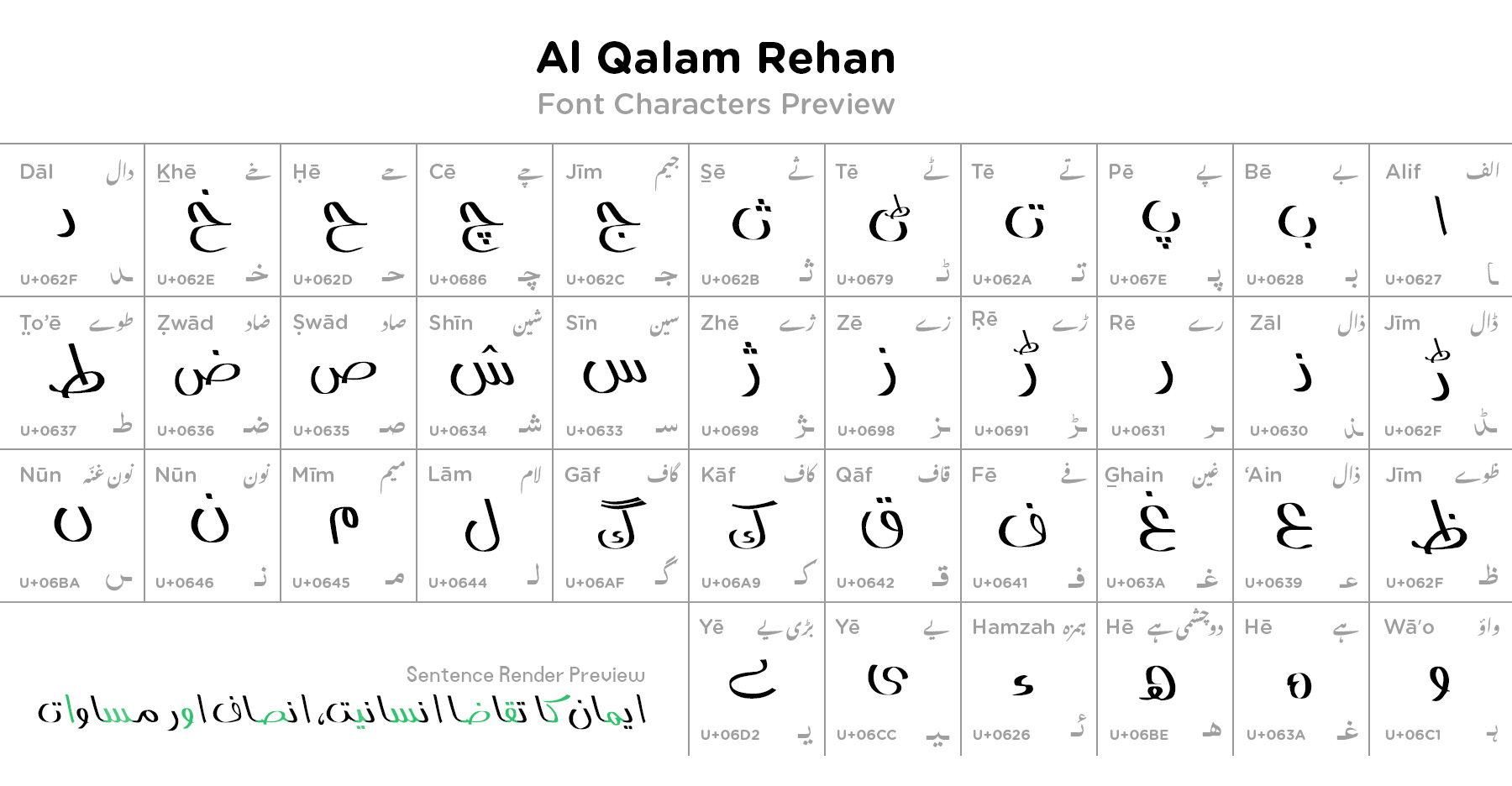
Al Qalam Rehan, crafted by font designer Syed Shakir ul Qadree, is a whimsical and decorative party-style font released on January 30, 2016. Inspired by the Nastaliq script, it features soft, rounded letters with delicate pointy corners and elongated curly tails, lending it a playful charm. With 215 characters and 330 glyphs, it supports multiple languages like Urdu, Arabic, Latin, and Persian. Moreover, the font complies with the latest Unicode standards, including Basic Latin, Arabic, Latin-1 Supplement, Arabic General Punctuation, and more, increasing its practicality even more.
The font’s cursive style, contrasting thick and thin strokes, and intricate diacritics give it a unique and decorative appearance, perfect for branding, logos, invitations, gift cards, and creative projects. However, its moderate legibility on screens may pose challenges at lower pixel densities, making it more suitable for short text applications. Despite this, its wide layout and soft, rounded look add a touch of whimsy to any design. Overall, Al Qalam Rehan offers a fun and distinctive option for designers looking to add personality to their projects. However, its usability can be affected with only a single (regular) weight on hand.